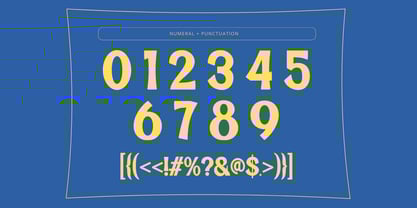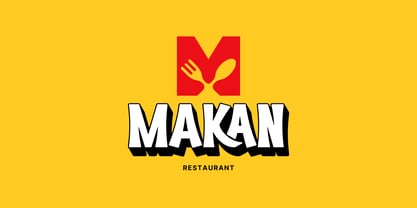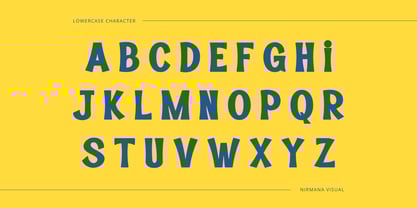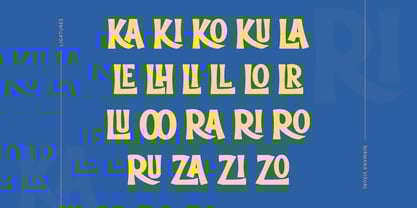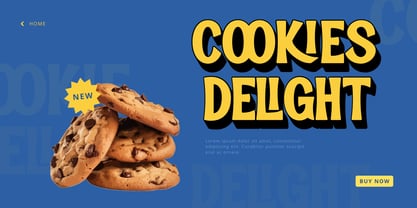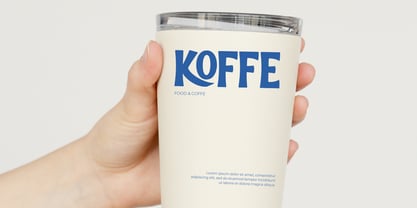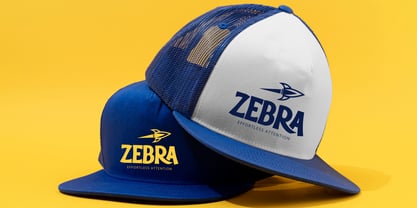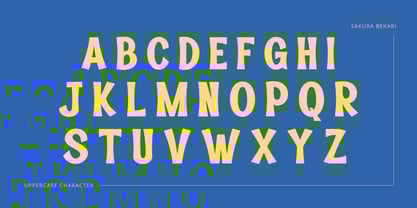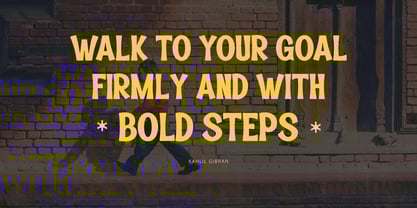
Sakula Bekari Retro
by Nirmana Visual
The Sakula Bekari Retro Font Family was designed by Sigit Dwipa and published by Nirmana Visual. Sakula Bekari Retro contains 2 styles and family package options. More about this family
Introducing Sakula Bekari Retro, a bold and stylish display font with a retro flair. Perfect for vintage-themed designs, this typeface captures the charm of classic signage and old-school typography. It comes in two styles: Regular for a clean, nostalgic look and Extrude for a striking 3D effect. Ideal for posters, branding, packaging, and more, Sakula Bekari Retro brings a timeless, eye-catching appeal to any project. Elevate your designs with its bold curves and retro personality!
Designers: Sigit Dwipa
Foundry: Nirmana Visual